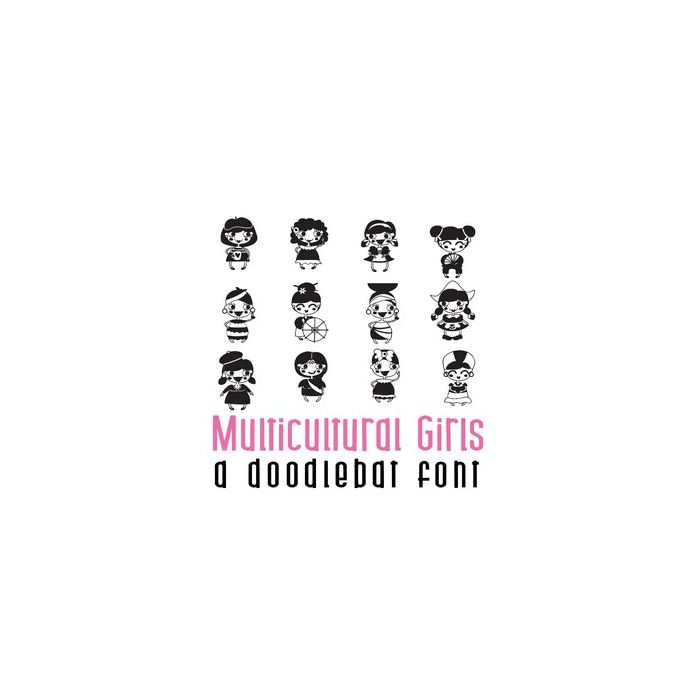
This adorable doodlebat font features 26 multicultural girls from around the world. Perfect for cards, crafts, gifts, decor, scrapbook pages, planner stickers, and more!